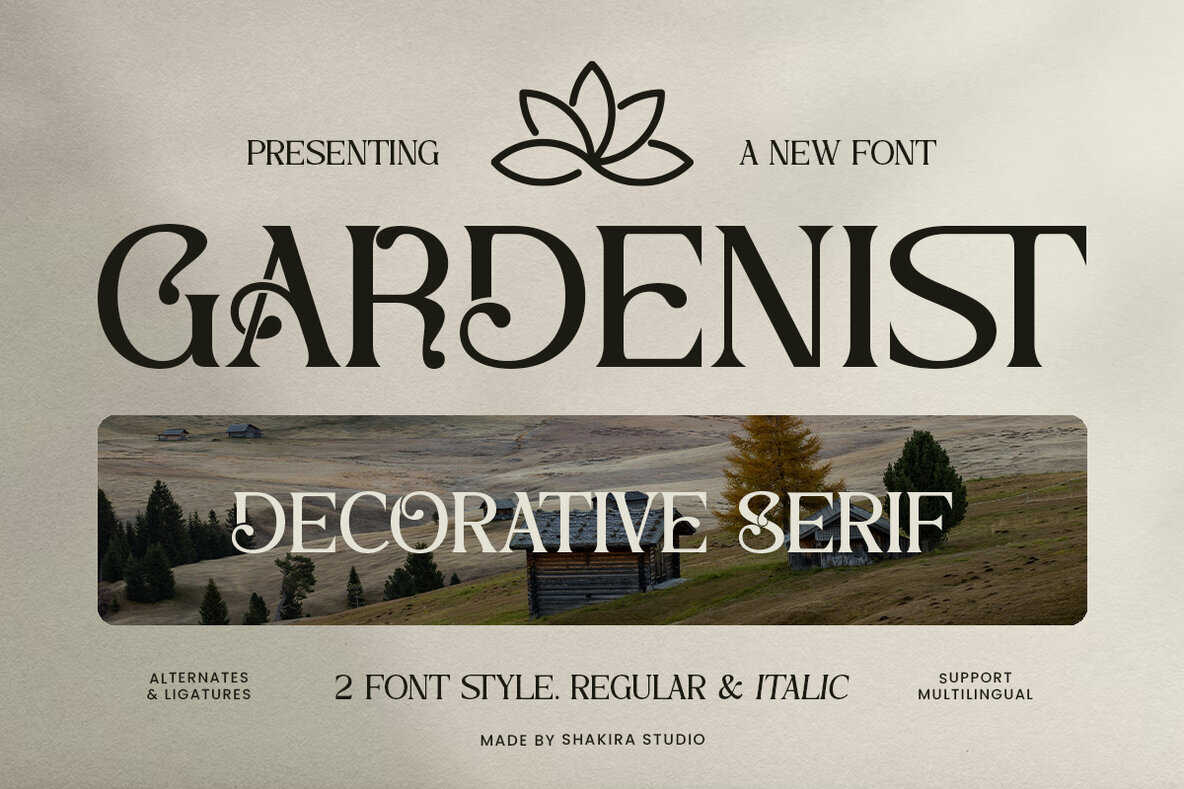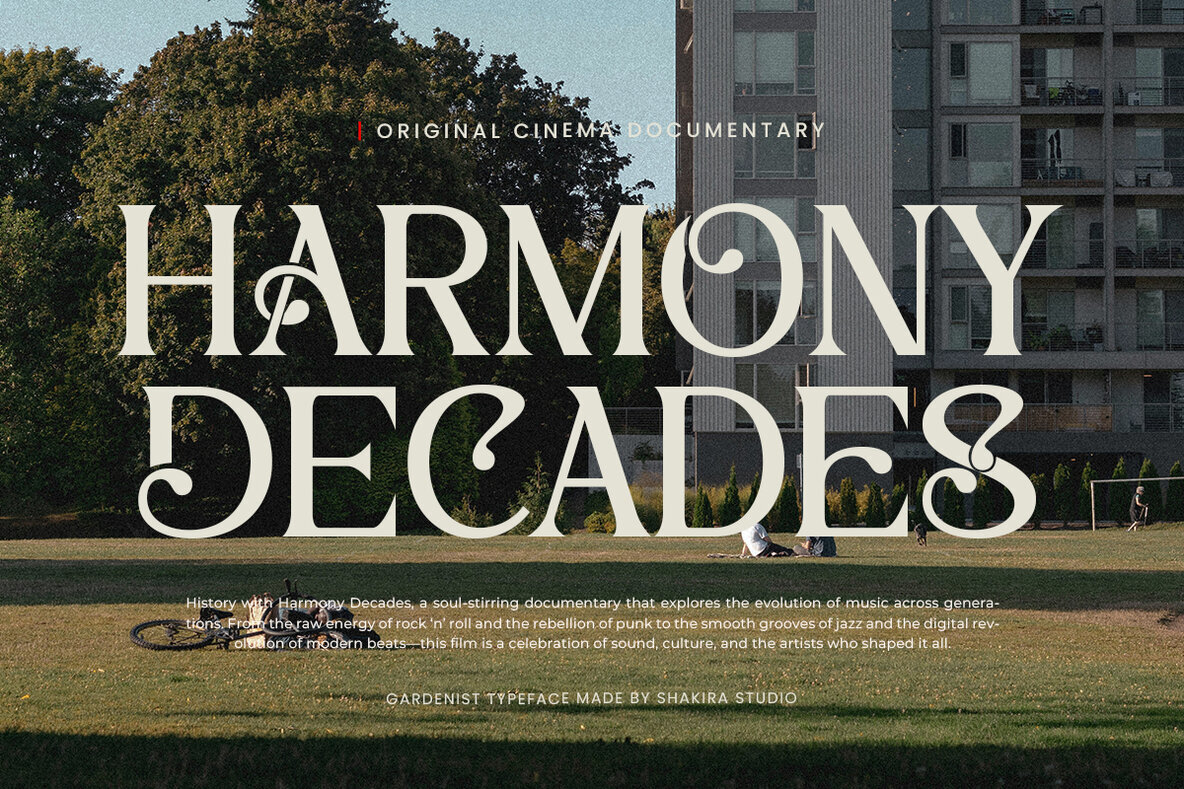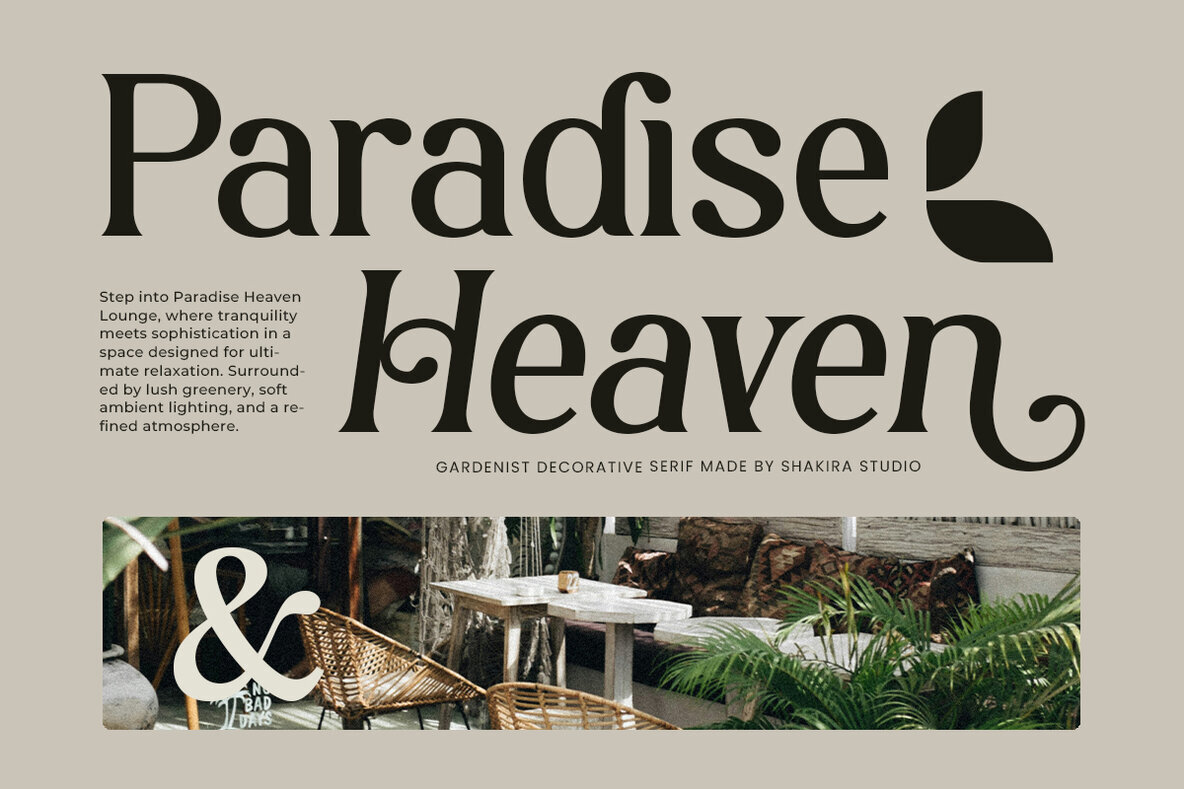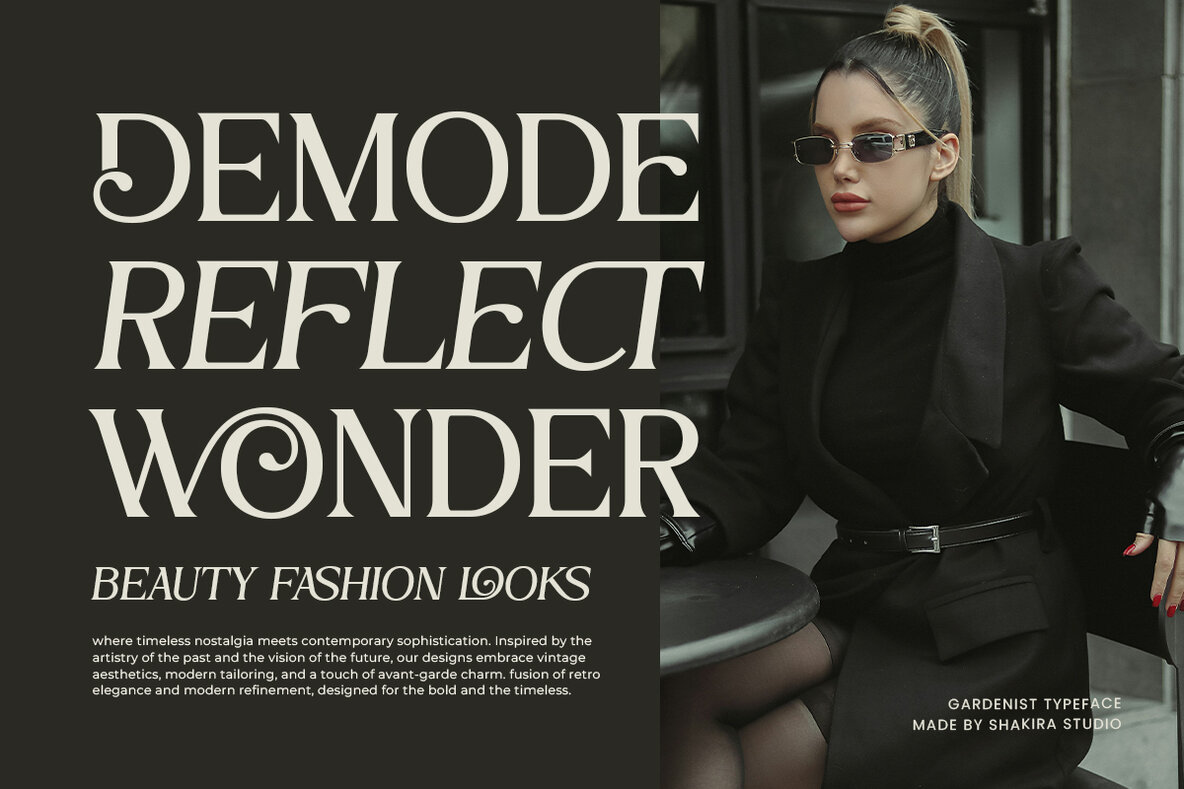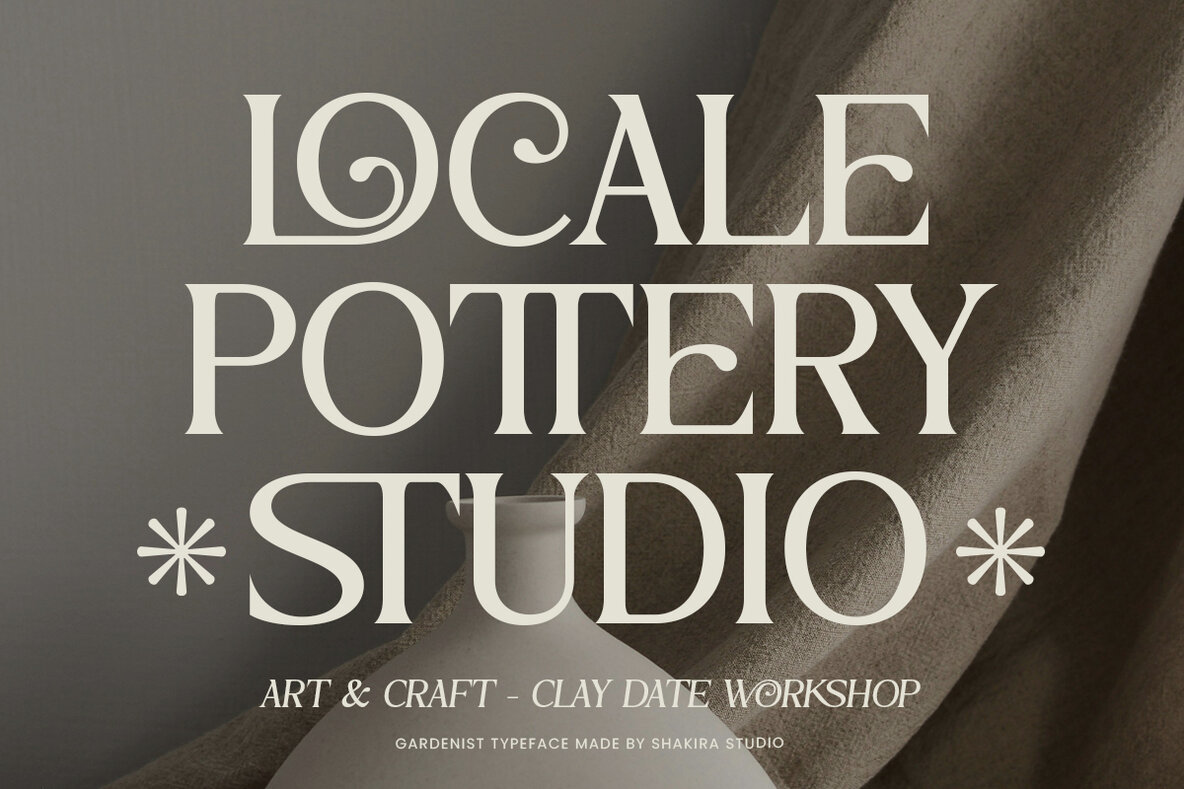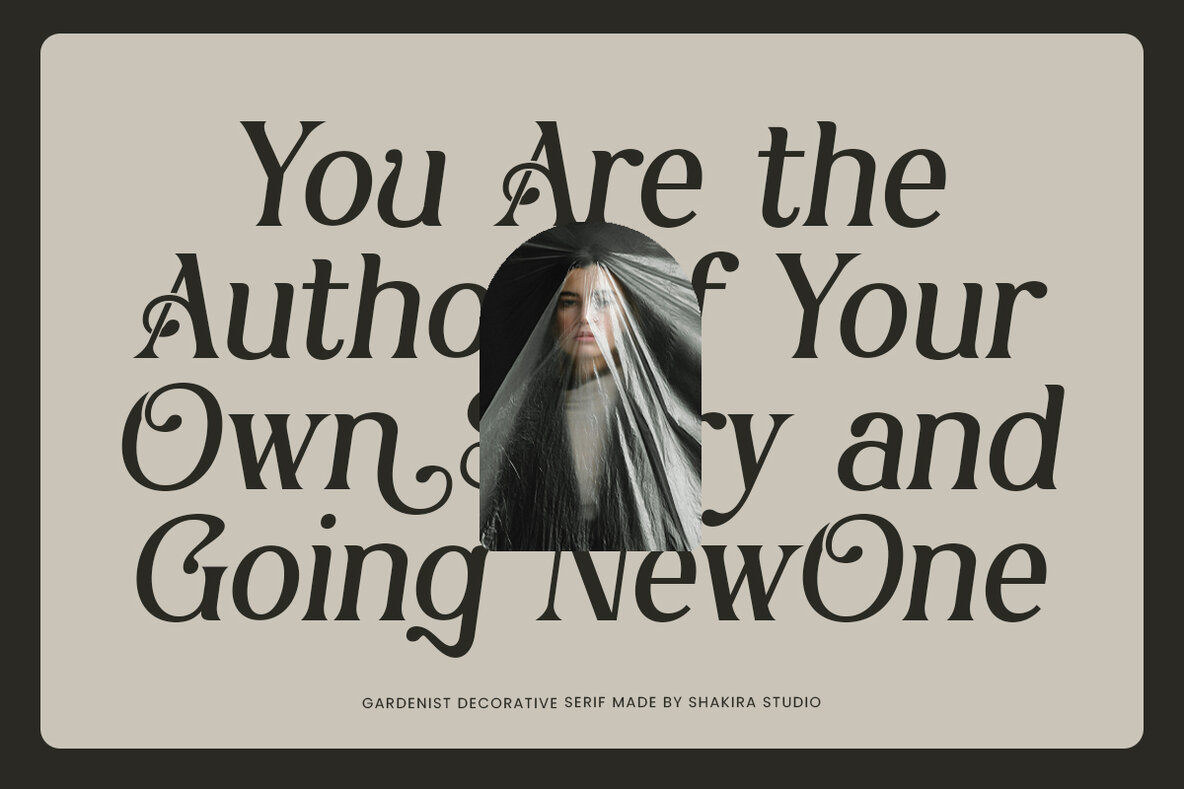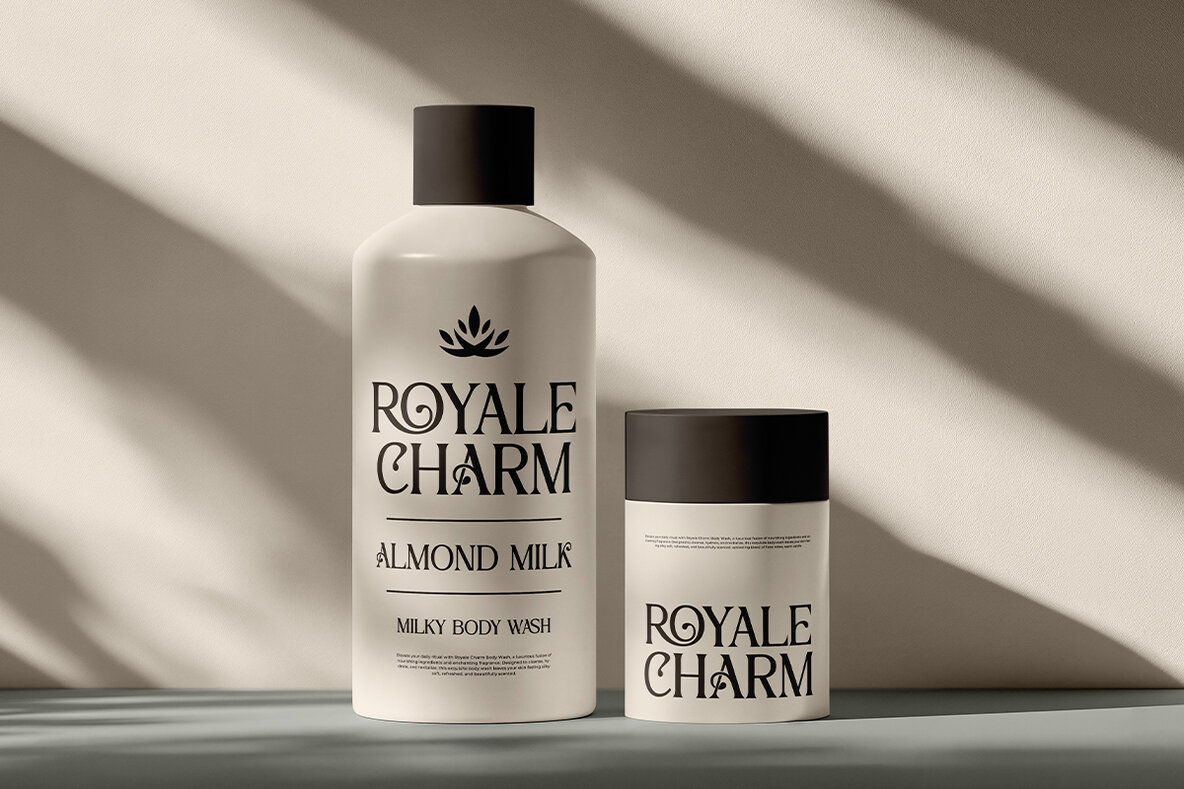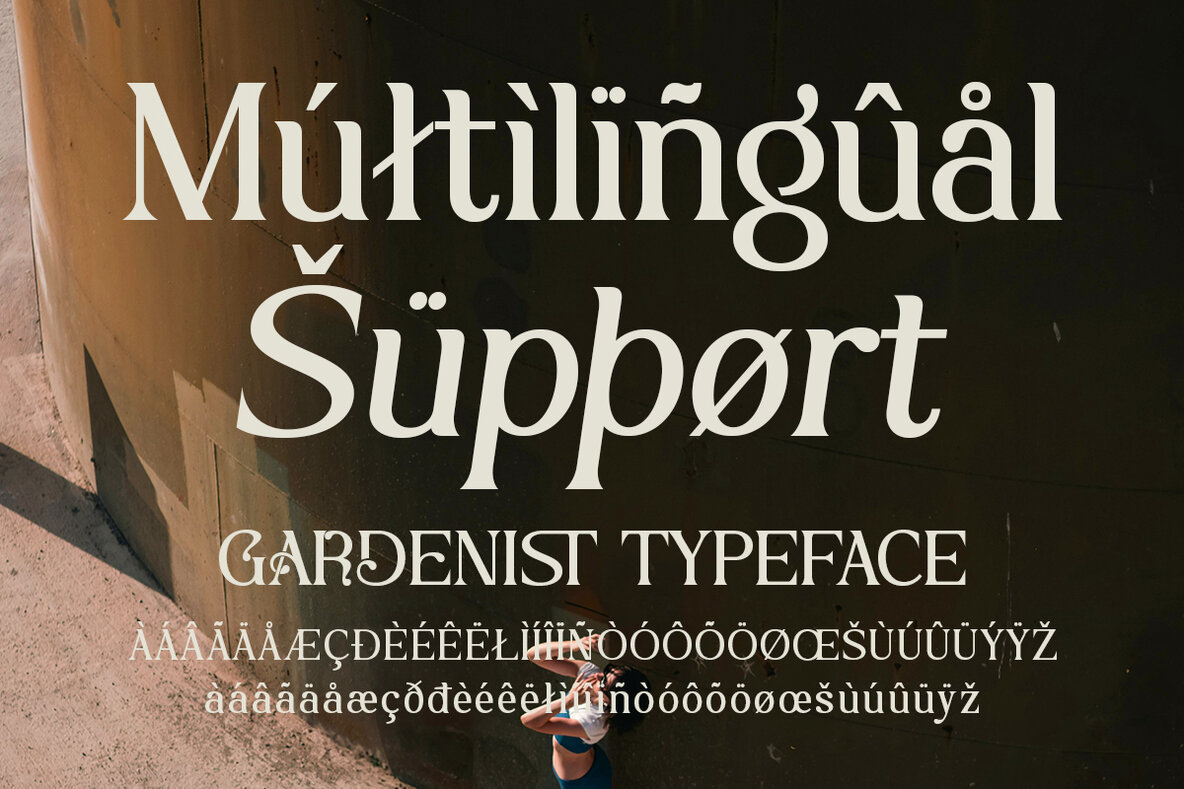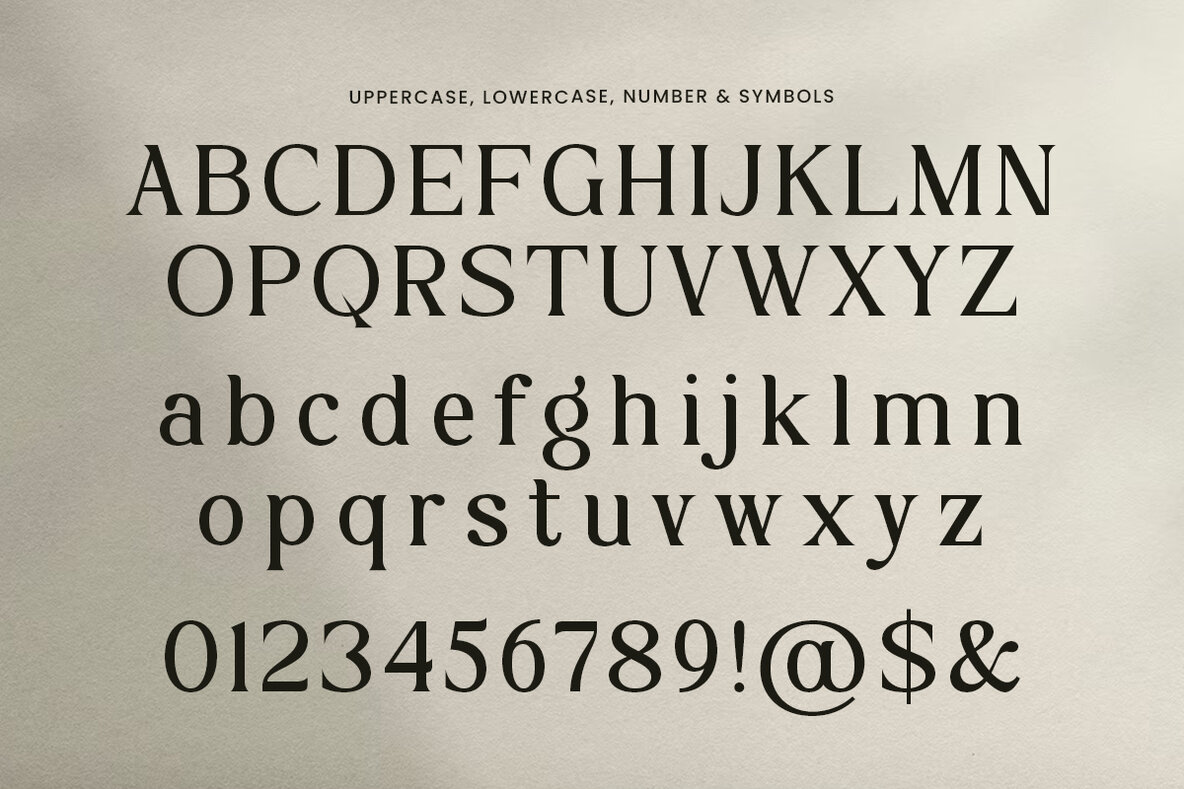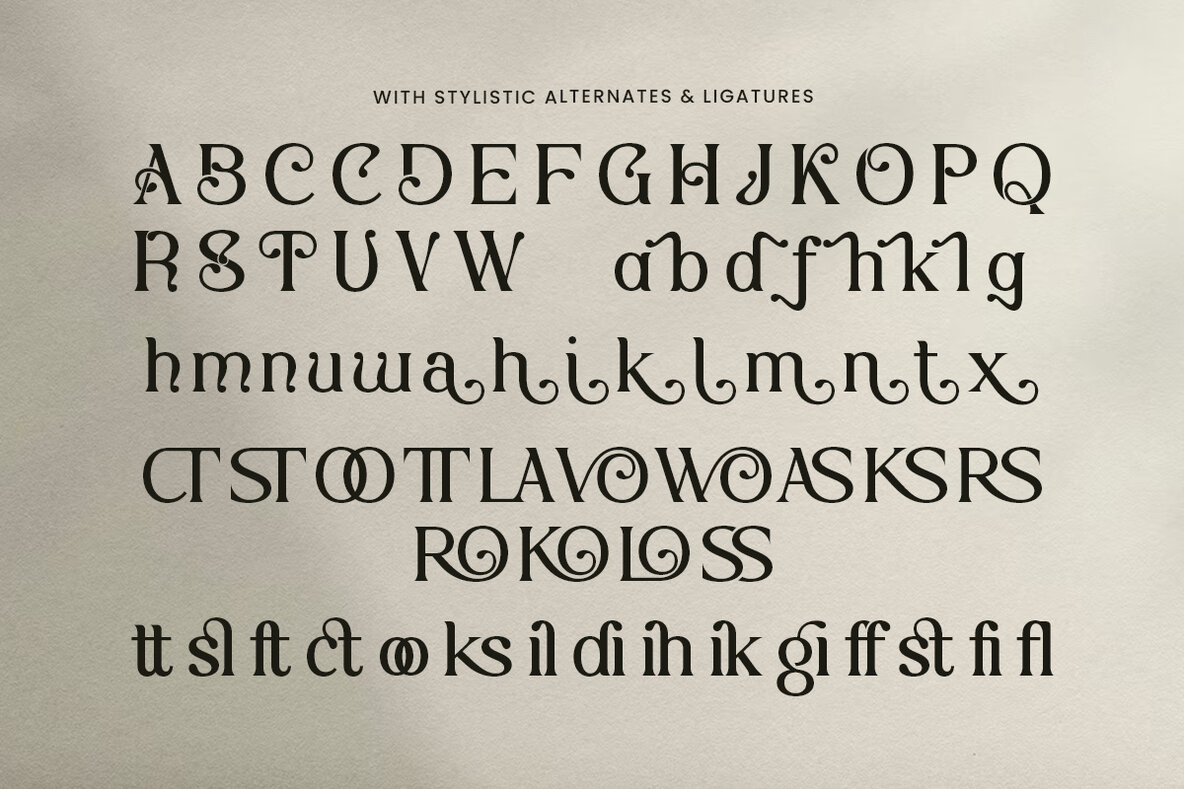
Gardenist Font
Gardenist Regular
Gardenist Italic
Gardenist is a decorative serif font that flawlessly combines ornamental elegance with modern practicality. Offering regular and italic styles, along with stylish alternates and ligatures, it provides exceptional creative flexibility for your design endeavors. With intricate decorative elements and flowing serifs, Gardenist opens endless possibilities for creating unique branding, distinctive logos, eye-catching packaging, and impressive posters. The thoughtfully crafted alternates and ligatures let you personalize each project with distinctive typographic touches. Experience the sophistication of Gardenist and transform standard text into striking typographic art. Whether crafting luxury branding, refined packaging, or exquisite invitations, this font adds a unique decorative flair to elevate your projects.Gardenist: Decorative Serif Font for Elegant Design
Where Beauty Meets Functionality